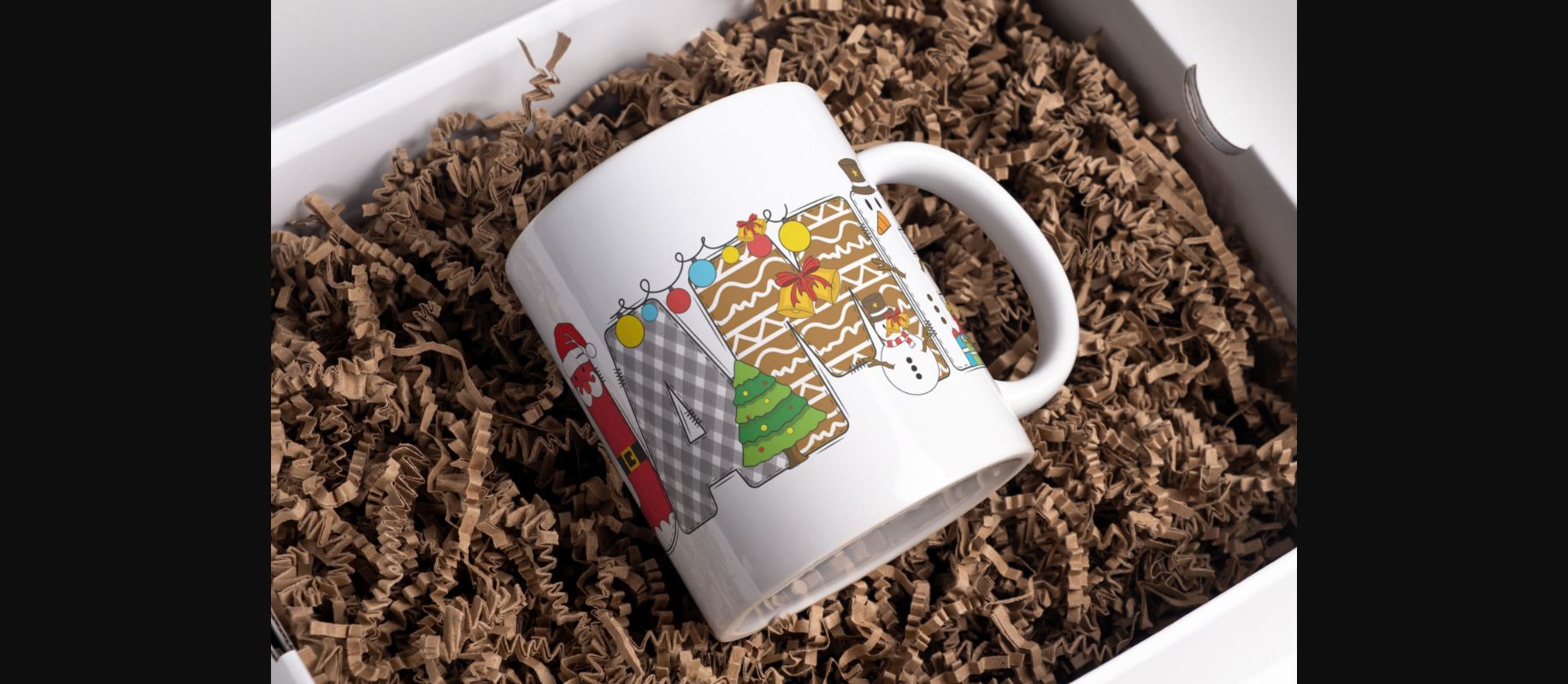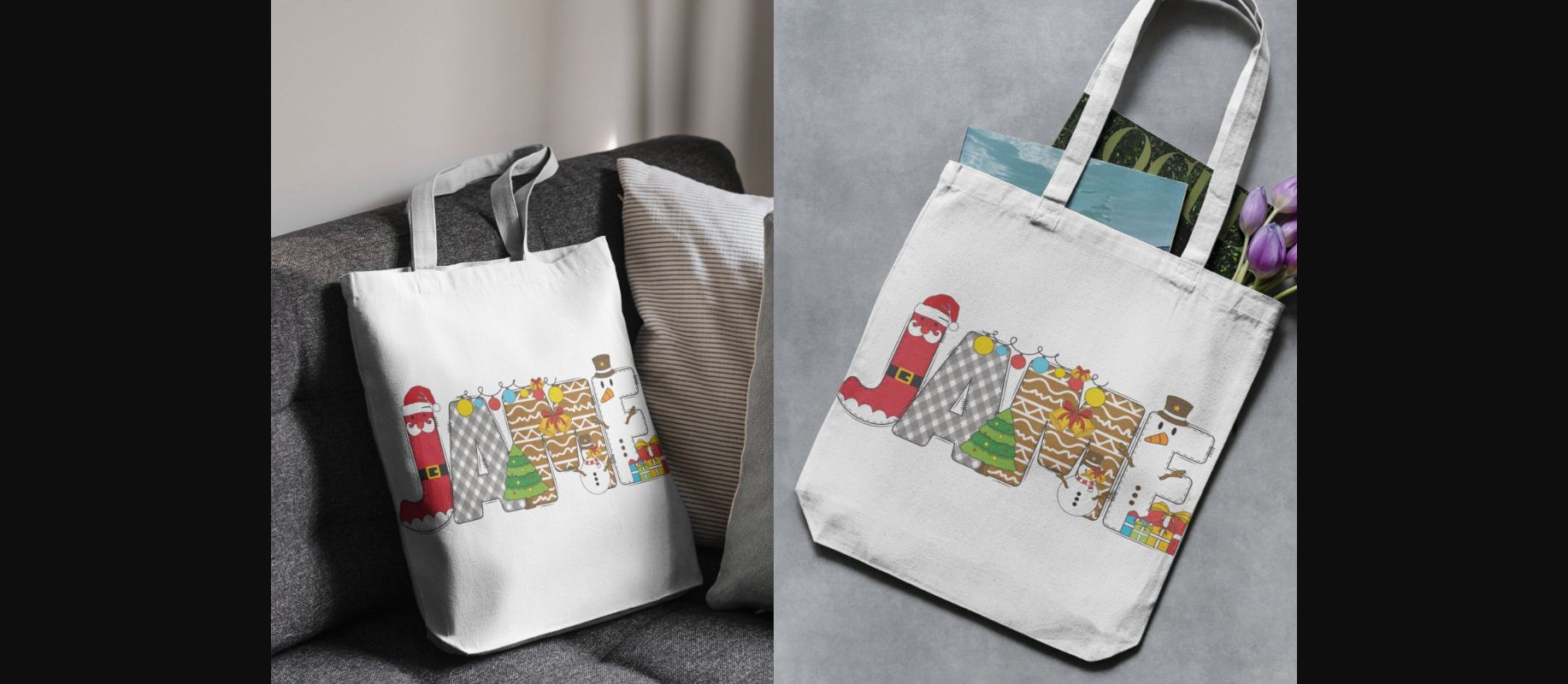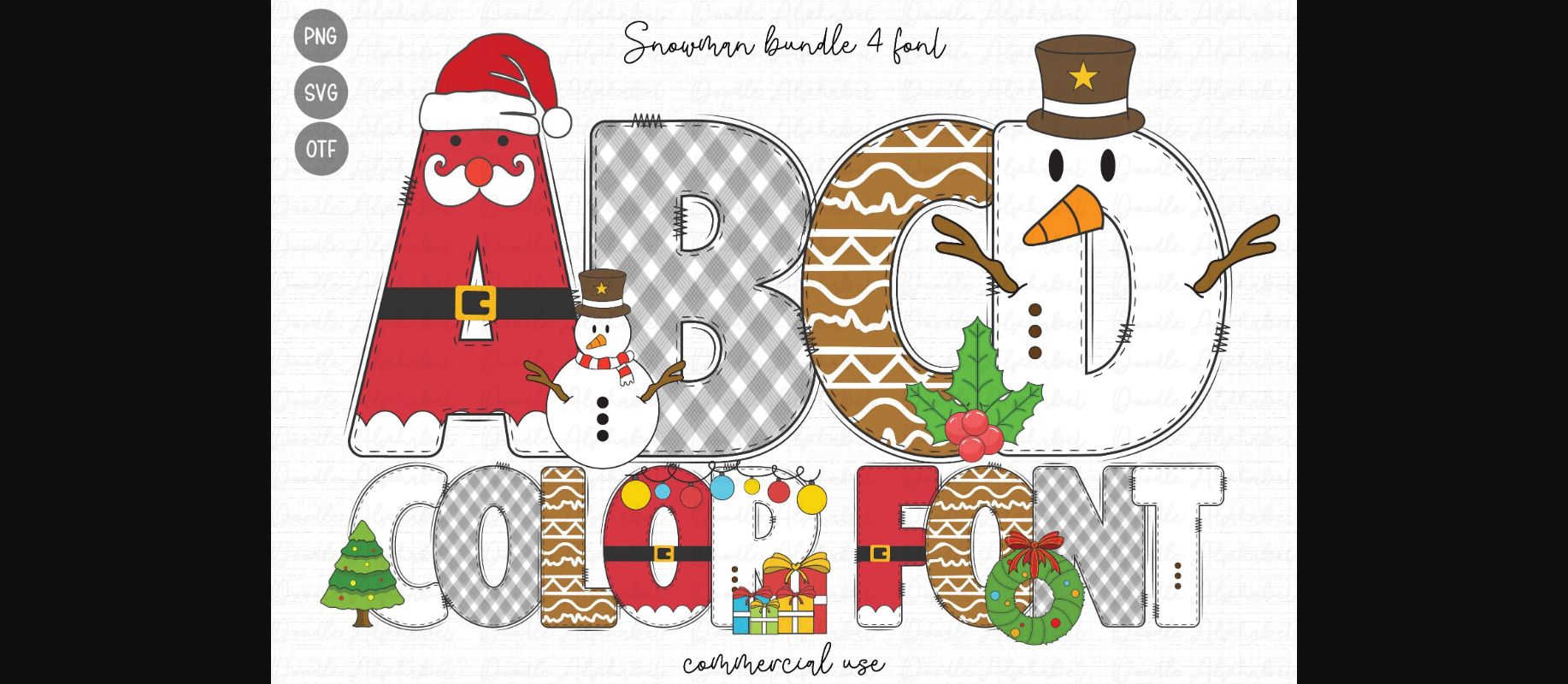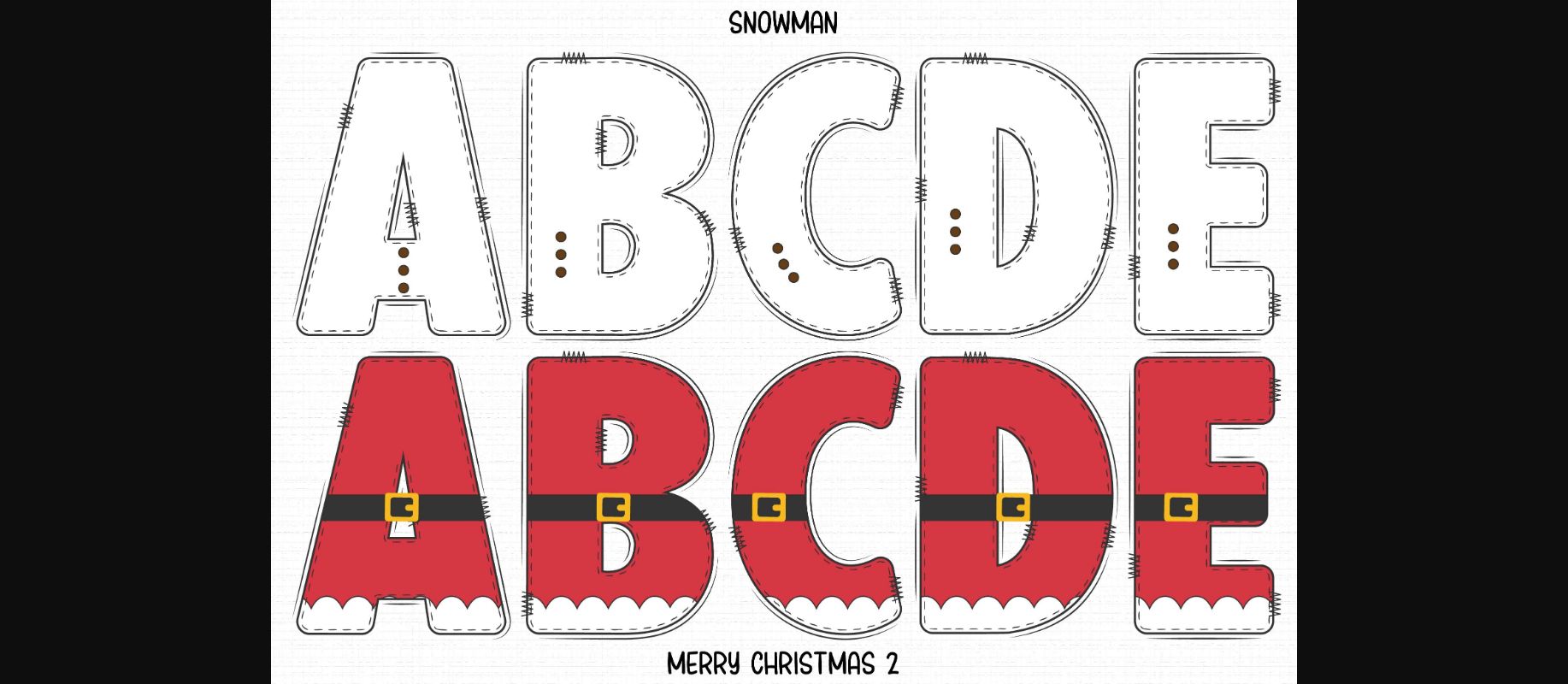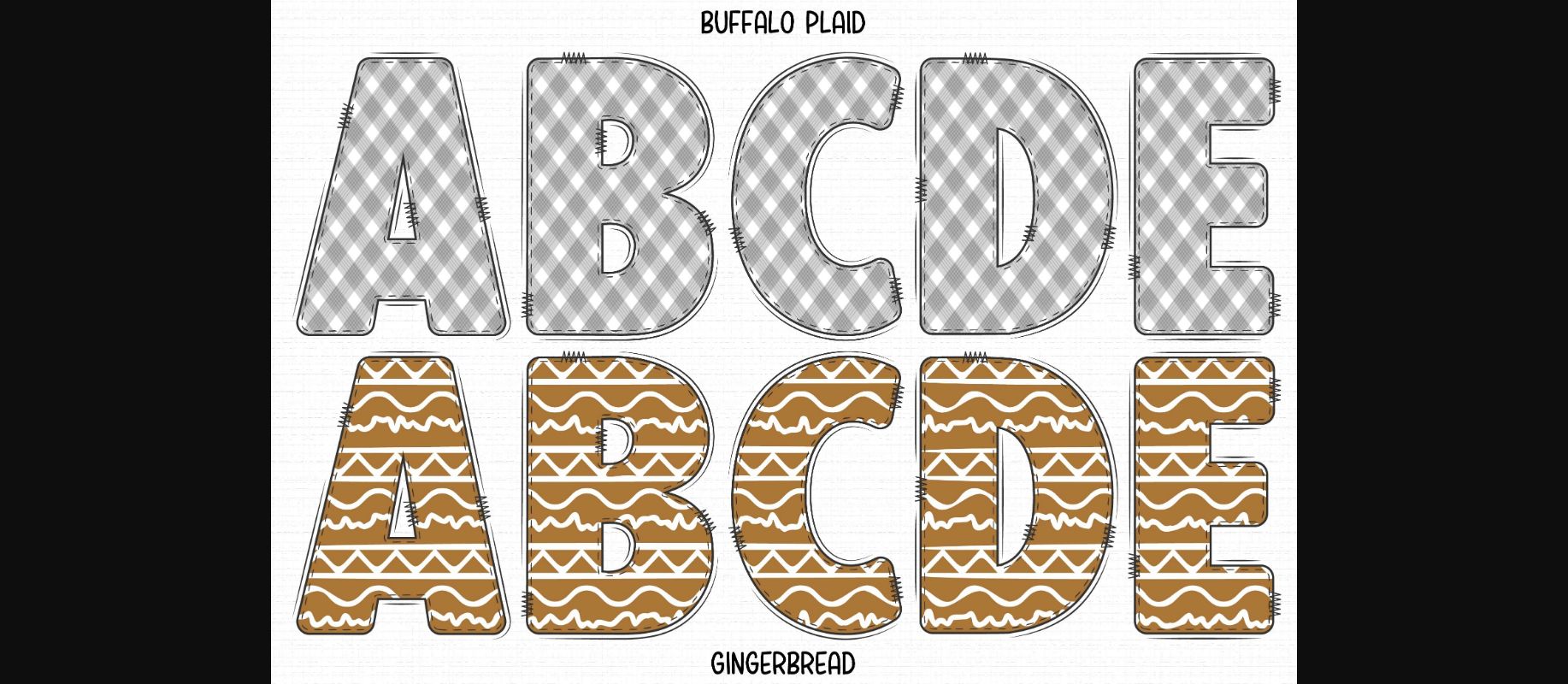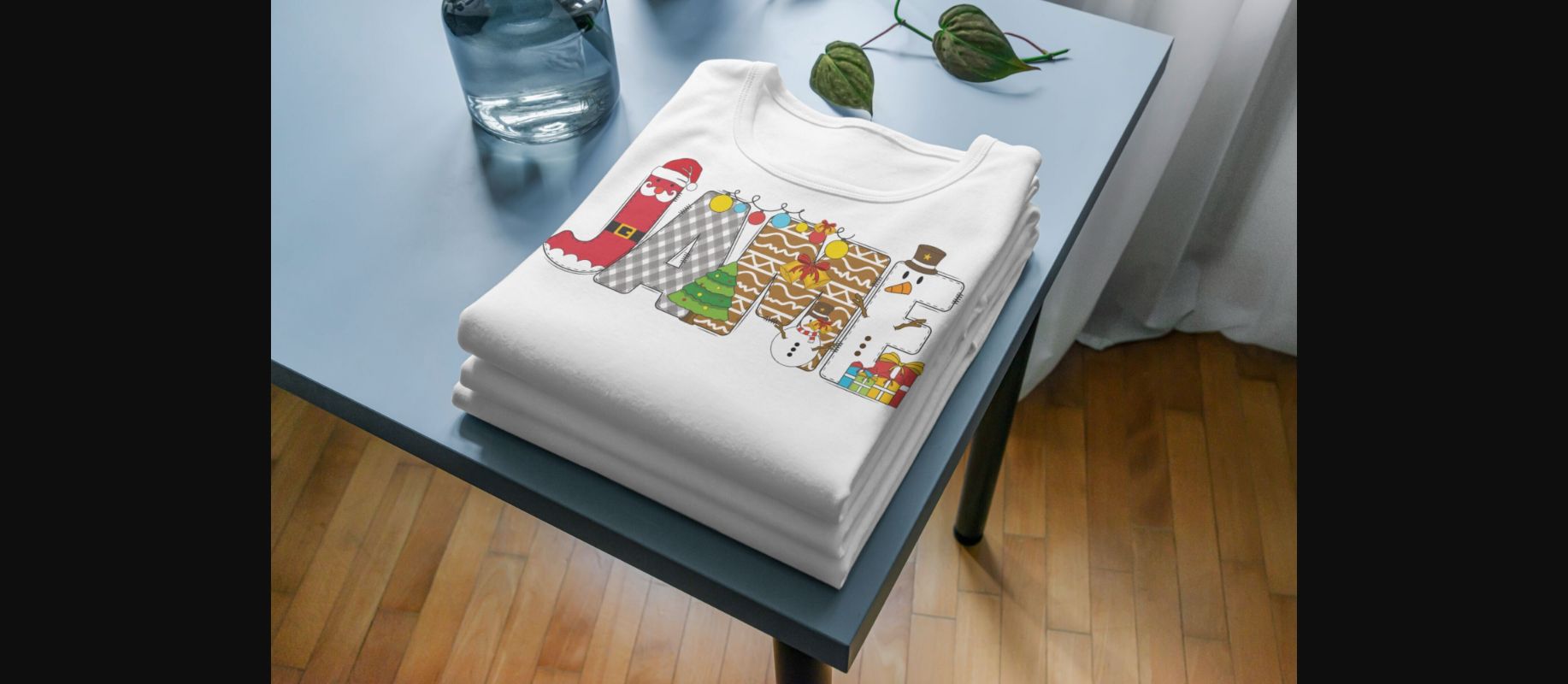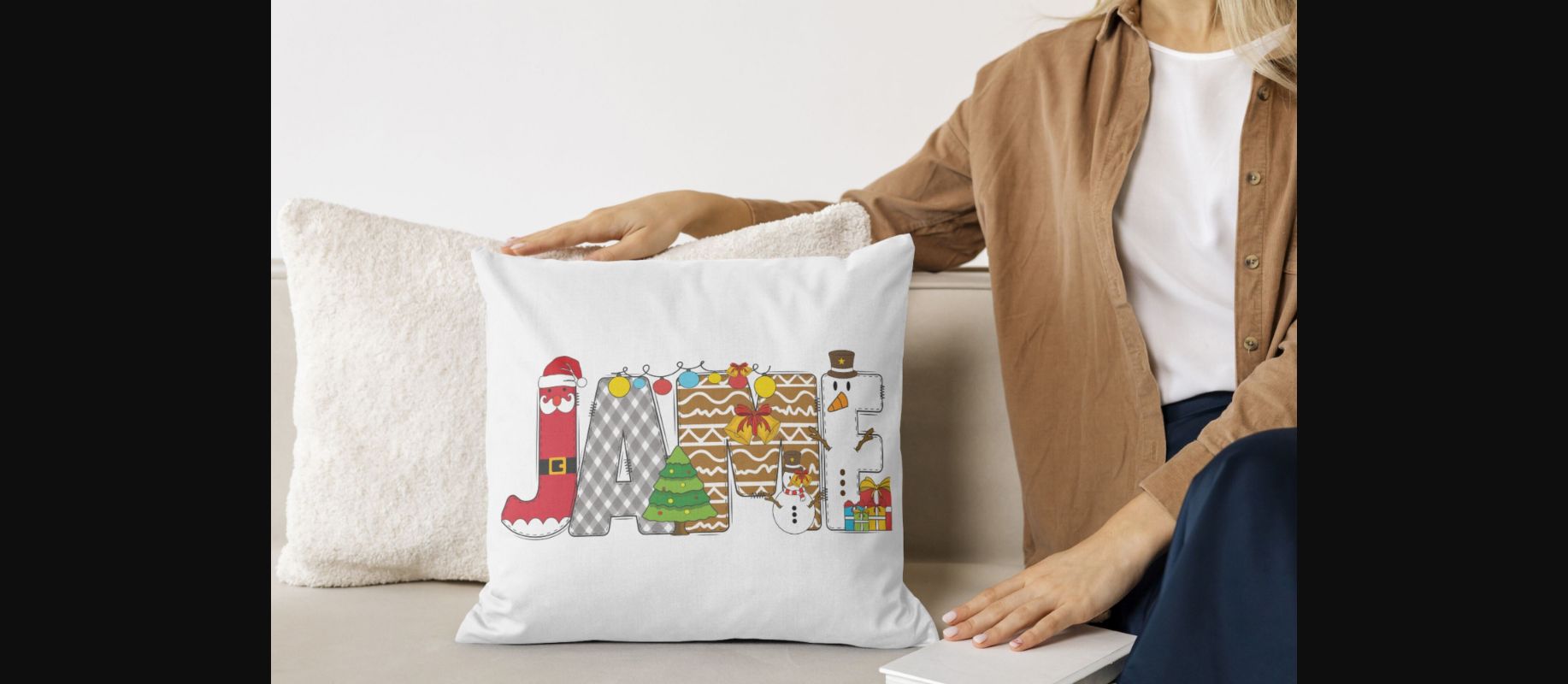
Christmas Font
Christmas is a cute and festive Decorative font. It will look amazing on all your Christmas-themed designs, shirts, crafts, and cards and will instantly enhance your projects!